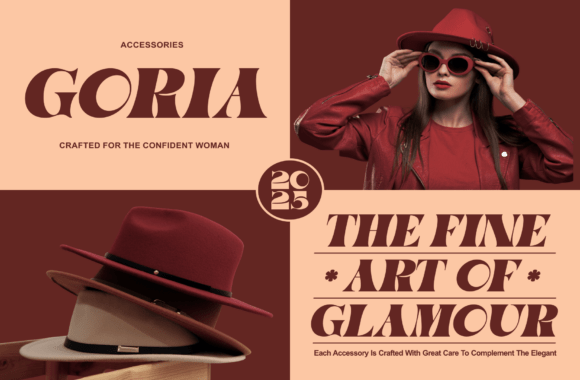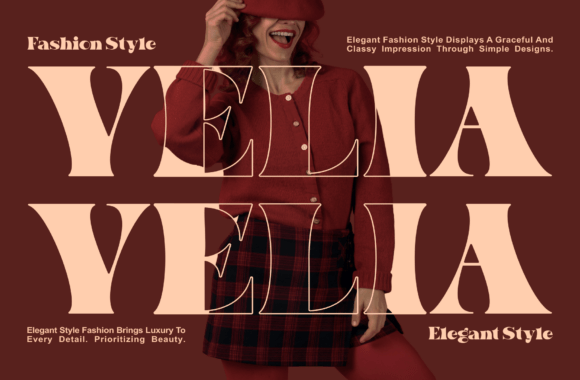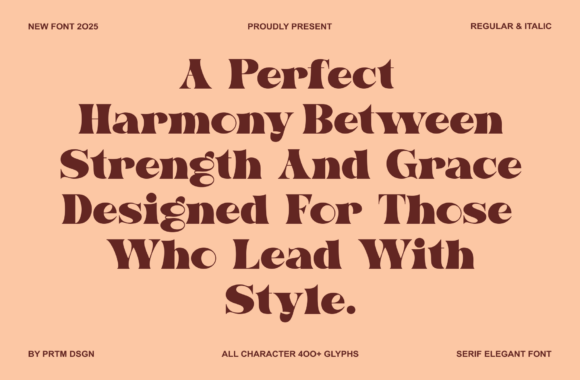
Introduction to Moice Cigo Font
As a designer, have you ever stared at a blank canvas, searching for the perfect font to bring your creative project to life? The moment when everything clicks, and your design transforms into a masterpiece, is a feeling like no other. It’s the result of careful consideration, attention to detail, and the right tools at your disposal.
That’s where the Moice Cigo Font comes in – a game-changing design resource that elevates your work to new heights. This elegant, bold serif font boasts a unique balance of strength and refinement, making it an ideal choice for premium branding, editorial layouts, and high-end design projects. With its transparent background and high-quality design, Moice Cigo Font is a must-have for any serious designer looking to take their work to the next level.
Key Features of Moice Cigo Font
- Unique, hand-drawn design with a transparent background, making it perfect for creative projects and designs that require a touch of elegance.
- High-quality font with a high-resolution design (300 DPI) for crisp and clear text rendering.
- Perfect for use in a variety of creative projects, including logos, branding, packaging, and digital designs.
- Highly versatile font that can be used in both modern and traditional designs, adding a unique touch to any project.
Honest Review: Moice Cigo Font
I recently stumbled upon the Moice Cigo Font, and I must say it’s a fantastic addition to any design resource collection. This free download has been a game-changer for my creative projects, offering a high-quality font that’s perfect for modern designs.
What works well about the Moice Cigo Font is its versatility. It comes with a transparent background, making it easy to customize and pair with other design elements. The font’s sleek and modern aesthetic also makes it ideal for a wide range of creative projects, from branding to digital art.
- ✨ Highly versatile and customizable
- ✨ Perfect for modern designs and creative projects
- ✨ High-quality font with a transparent background
However, I do have to mention that the font’s limitations lie in its limited character set. While it’s perfect for logos and headlines, it may not be suitable for extended blocks of text.
Overall, I’m impressed with the Moice Cigo Font and would highly recommend it to designers looking for a high-quality, modern font for their creative projects.
Tips for Getting the Most Out of Moice Cigo Font
To get the most out of the Moice Cigo Font, experiment with different font sizes, colors, and styles. You can also combine it with other design elements to create unique and eye-catching designs.
The Moice Cigo Font is suitable for various creative projects, including:
- Branding and logos
- Brochures and flyers
- Website design and development
Great Vibes is a beautiful, high-quality script font perfect for creative projects that require a touch of elegance. It’s free to download and offers a transparent background, making it ideal for design resources that need a sophisticated look. Great Vibes is suitable for use in titles, headings, and even as a standalone design element.
Compared to Moice Cigo Font, Great Vibes offers a more elegant and sophisticated design, making it perfect for creative projects that require a high-end look.
Lato is a modern sans-serif font that offers a clean and elegant design perfect for creative projects. It’s free to download and offers a transparent background, making it ideal for design resources that need a neutral background. Lato is suitable for use in body text, headings, and even logos.